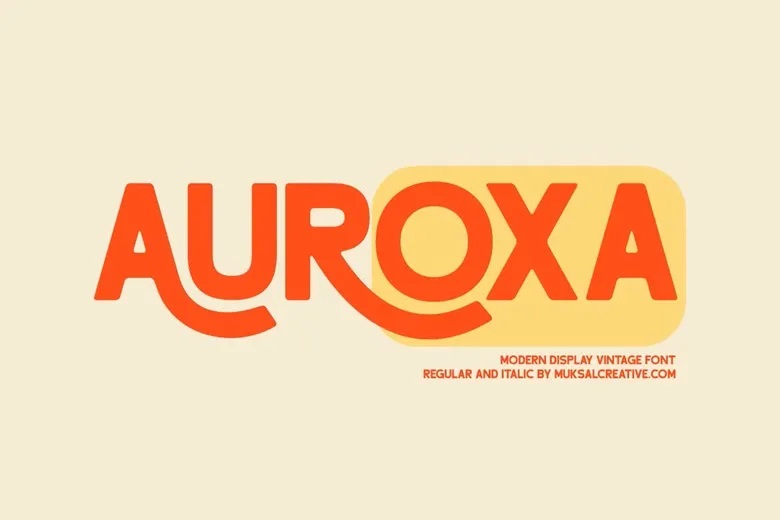
Auroxa Font
Auroxa is an adventurous retro contemporary sans serif type that succeeds in not just mixing retro style with modern charm. It has its strong curves and its unique ligatures and type, making it a perfect typeface to use when branding needs personality and presence. Auroxa layout is also created by taking into consideration old age signages and old commercial product boxes and vintage typography of the middle 20 th century that has the vintage feeling with a solid contemporary tone of text.
It is ideal to be used in fashion labels, cafe menus, vintage posters, editorial titles, product packaging, and creative logos. Multilingual support, custom ligatures and stylistic alternates are supplied to ensure your design is unique and handcrafted without losing the impression of finishing.